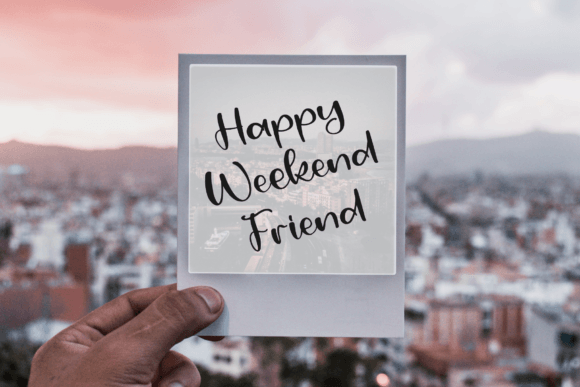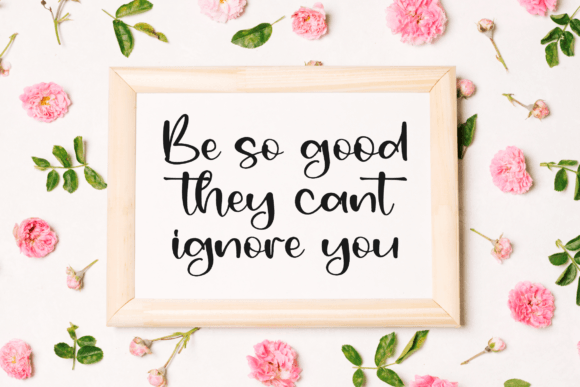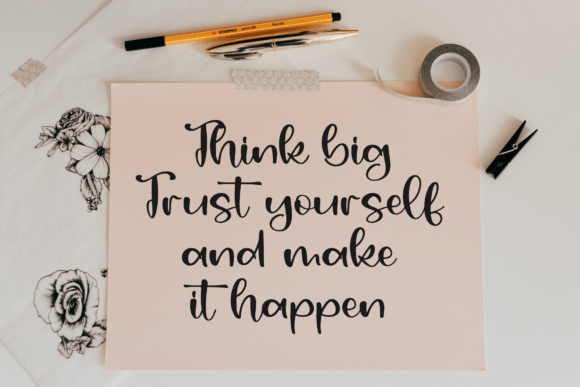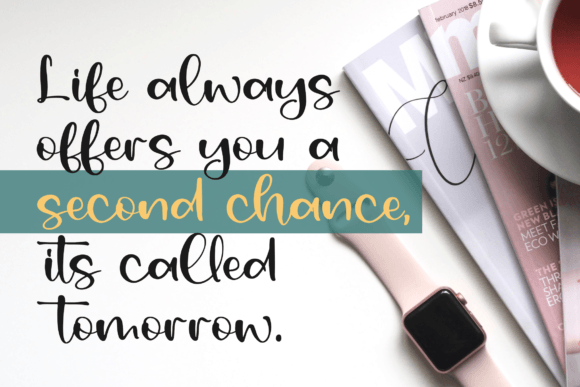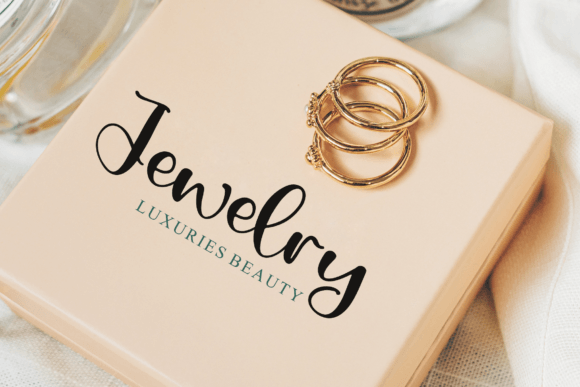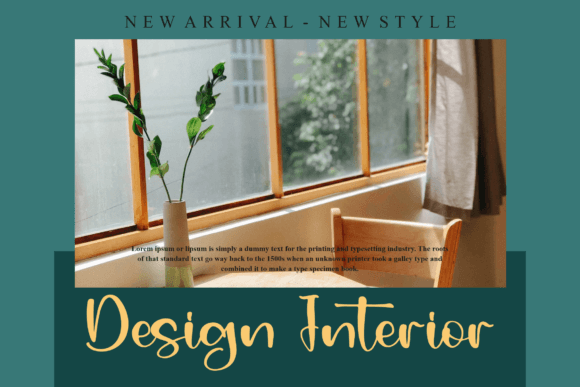
Have you ever sat at your desk, staring at a blank piece of paper, waiting for inspiration to strike? It’s a familiar feeling for many creatives, but one that can be sparked with the right tools. For designers, the perfect font can be the catalyst that sets their imagination ablaze.
Enter the Cattingale Font, a beautiful handwritten script designed to add a touch of elegance to any project. Whether you’re working on a logo, branding project, or product packaging, this font is sure to make your designs stand out. Its versatility and classic charm make it a valuable asset for any designer looking to add a personal touch to their work.
With the Cattingale Font, you’ll be able to bring your creative vision to life in a way that’s both timeless and modern. Its beauty lies in its simplicity, making it the perfect choice for a wide range of projects.
Cattingale Font Key Features
- Unique Characteristics: Cattingale Font features a unique blend of modern and vintage elements, resulting in a distinctive and eye-catching design that can add a touch of sophistication to any project.
Designer Review: Cattingale Font
Overall, I’m quite impressed with the Cattingale font. It has a unique and whimsical feel to it, which I think could be perfect for certain design projects.
- ✨ The font’s most notable feature is its intricate, hand-drawn feel, which adds a lot of character to text.
- ✨ The Cattingale font has a wide range of weights and styles, making it easy to use in various design contexts.
- ✨ The font’s lines are clean and well-defined, making it easy to read and use in body text.
- ⚠️ The font may not be suitable for projects that require a more formal or professional tone.
- ⚠️ The font’s intricate design can sometimes make it difficult to read at very small sizes.
- ⚠️ The font’s unique feel may not appeal to everyone, and some designers may find it too whimsical or over-the-top.
Overall, I think the Cattingale font is a great addition to any designer’s toolkit. While it may not be perfect for every project, it has a lot of potential and can add a unique touch to the right design.
For best results, pair the Cattingale Font with a simple design and minimal background noise.
The Cattingale Font is ideal for:
– Titles and headings
– Quotes and captions
– Print materials and stationery
Alternatives to Cattingale Font for Designers
Oswald is a sans-serif font that works well for headings and titles. It’s ideal for use in bold and condensed forms to create a strong visual impact. Compared to Cattingale Font, Oswald has a more modern feel and is better suited for digital interfaces.
Playfair Display is an elegant serif font that’s perfect for luxury branding and high-end designs. It’s a good choice for use in titles, headings, and body text where a touch of sophistication is required. In comparison to Cattingale Font, Playfair Display is more ornate and better suited for traditional or vintage-inspired designs.
Alegreya Font
Alegreya is a serif font that’s designed for body text and is suitable for use in a variety of contexts, from editorial to branding. It’s a good choice when you need a font that’s both readable and visually appealing. Compared to Cattingale Font, Alegreya is more suitable for large blocks of text and has a more subtle, classic feel.